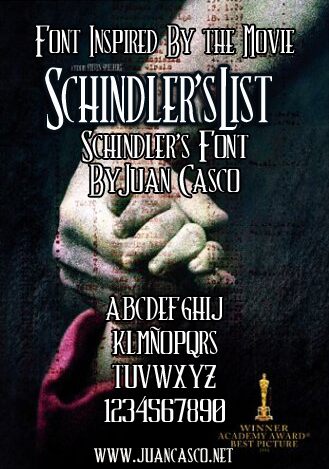
Schindler's Font by Juan Casco is a free high-contrast serif display face with a theatrical, eccentric silhouette. Tall letters mix needle-thin strokes with broad curves and sharply cut serifs. Their proportions shift noticeably across the alphabet.
Turn-of-the-century poster drama makes this font well suited to fashion publishing, cabaret events, and album covers. Strong changes in width give expressive packaging a deliberately composed look. It can also turn restaurant signage or festival branding into a decorative centerpiece.